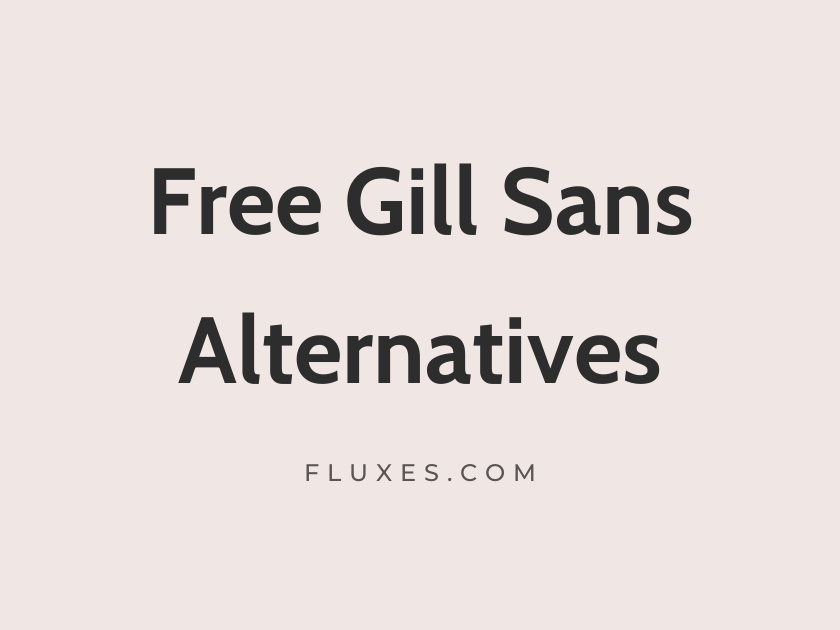
14 Best Free Fonts Alternatives to Gill Sans
Gill Sans has been a fixture of British design since Eric Gill drew it for Monotype in the late 1920s, its humanist bones and geometric discipline showing up everywhere from Penguin book jackets to BBC title cards. Because it remains a commercial typeface, designers searching for a free Gill Sans alternative on Google Fonts need something that shares its warmth, its slightly old-fashioned charm, and its readability at both display and text sizes. The fonts gathered here draw from that same humanist-geometric family tree, some closer to Gill’s original proportions, others simply sharing its friendly, trustworthy character.
1. Cabin
Clean lettering for signage, books, and branding
Cabin is the most direct answer if you are hunting for something that actually references Gill Sans and the London Underground’s Johnston typeface. Its rounded stroke endings and open apertures give it the same approachable, civic-minded feel, making it a natural fit for editorial layouts, wayfinding mockups, or any project that wants Gill Sans’s warmth without the licensing fee.
2. Jost
Geometric forms with a vintage typographic spirit
Jost leans more geometric than Gill Sans, closer to the Kabel and Futura lineage, but it carries the same 1920s-30s confidence that makes it a favorite substitute in vintage-inspired branding. Circular bowls and consistent stroke widths give it a stamped, poster-like quality that works well in headlines and logotypes.
3. Josefin Sans
Elegant headlines with an art deco touch
There is a slender, deco-era elegance to Josefin Sans that recalls the interwar period Gill Sans itself emerged from. It reads best at larger sizes, where its tall x-height and narrow proportions can breathe; pushed too small, the delicate strokes start to lose definition.
4. Nunito Sans
Friendly text for websites and mobile apps
Nunito Sans softens Gill Sans’s geometric edges into something rounder and more conversational, ideal for interfaces and body copy where approachability matters more than formality. It sits comfortably across a wide range of weights, which makes it dependable for long-form UI systems.
5. Fira Sans
Versatile sans-serif for reports and dashboards
Originally built for Mozilla’s Firefox OS, Fira Sans carries a practical, engineered feel while still keeping humanist curves that echo Gill Sans’s legibility-first design. It handles dense paragraphs, tables, and data-heavy layouts without fatigue, which has made it a workhorse in product and editorial design alike.
6. Work Sans
Straightforward type built for reading online
Work Sans was optimized for on-screen reading at medium sizes, and that practical brief gives it a no-nonsense clarity reminiscent of Gill Sans’s own text-friendly design. Pair it with a warmer serif for contrast, or let it carry an entire interface on its own.
7. Karla
Distinctive letterforms for modern branding
Karla brings a bit more personality to the humanist grotesque category, with quirky details in its italics and a slightly grotesque undertone that keeps it from feeling generic. It suits younger, design-forward brands that want the legibility of a Gill Sans alternative without looking quite so institutional.
8. Archivo
Bold headlines with a confident stance
Archivo is built for impact. Its grotesque structure and generous weight range make it a strong choice for headlines, posters, and anywhere Gill Sans’s bolder cuts might have been used for authority and presence.
9. Libre Franklin
Editorial type inspired by American classics
Libre Franklin descends from the same broad grotesque tradition that influenced Gill Sans’s own construction, and it wears that heritage well in newspaper-style layouts and long-form articles. Its wide weight range, from hairline to black, makes it flexible enough to handle both body text and display headlines within a single system.
10. IBM Plex Sans
Corporate documents with a human touch
IBM Plex Sans was designed to feel neutral yet distinctly human, a balance that maps well onto anyone replacing Gill Sans in corporate identity or annual-report work. It avoids the coldness of pure grotesques while still projecting the reliability that institutional branding usually demands.
11. Public Sans
Government-grade clarity for civic projects
Developed for United States government digital services, Public Sans was engineered for maximum legibility and neutrality, echoing the utilitarian spirit behind Gill Sans’s original signage use. It is an obvious pick for civic, transit, or public-information projects that need type to disappear in favor of the message.
12. Overpass
Highway-inspired lettering for wayfinding design
Overpass takes its structure from U.S. highway signage, giving it the same functional, road-tested legibility that made Gill Sans a favorite for transit and signage systems in Britain. Its monospaced companion also makes it handy for technical documentation alongside standard text.
13. Barlow
Contemporary grotesque for interfaces and apps
Barlow takes cues from California license plates and government signage, resulting in a low-key, slightly rounded grotesque that shares Gill Sans’s balance of geometry and warmth. It performs especially well in UI design, where its restrained personality stays out of the way of content.
14. Alegreya Sans
Refined pairing for literary and editorial work
Alegreya Sans
Alegreya Sans brings a more literary, humanist calligraphic influence to the list, making it a good option when Gill Sans was chosen for its bookish, editorial associations rather than its industrial ones. It pairs naturally with serif text faces in publishing layouts, adding a touch of refinement without sacrificing clarity.
Most of these fonts work best when given generous line spacing, since their open apertures need room to breathe.
For a Gill Sans style hierarchy, try a heavier weight from Archivo or Barlow for headlines and a lighter Work Sans or Public Sans for body copy.
If you want the closest historical echo, start with Cabin or Jost before exploring the more neutral grotesques.
Always test at your actual body text size before committing, since a few of these display more character at large sizes than small.
Any of these free Google Fonts can stand in for Gill Sans without asking a project to compromise on warmth, legibility, or that distinct British design lineage. Download a few, set them side by side in your own layouts, and let the specific mood of the project decide which humanist sans earns the job.